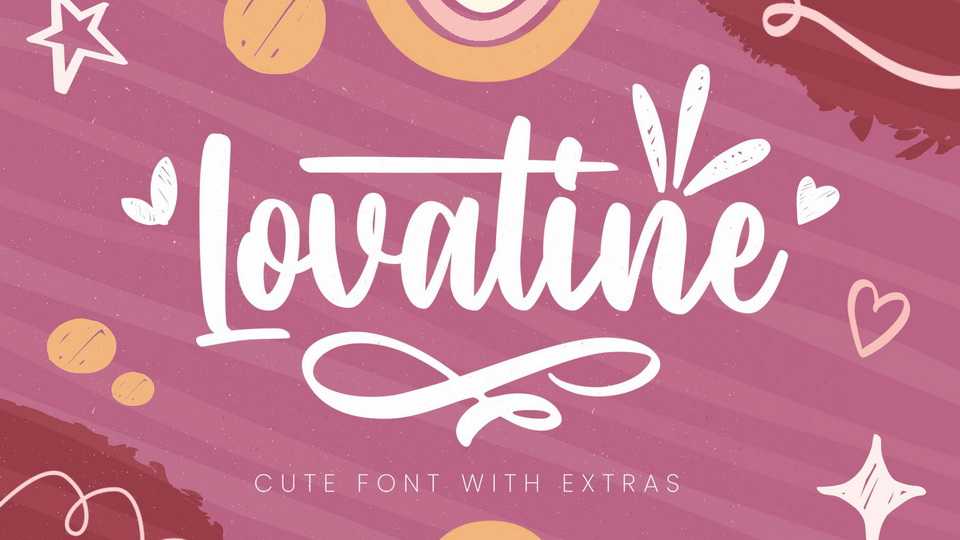
Download Lovatine font, a lovely handwritten typeface that is created with smooth, soft, and lovely feels. Lovatine is the perfect choice for decoration, branding, children’s needs, books, quotes, and more!